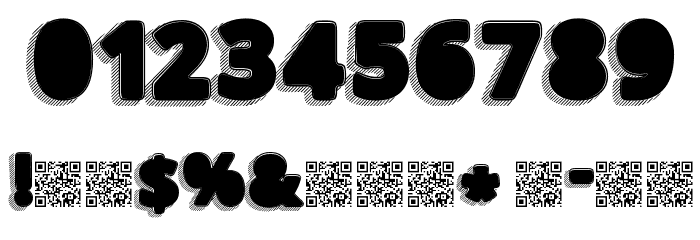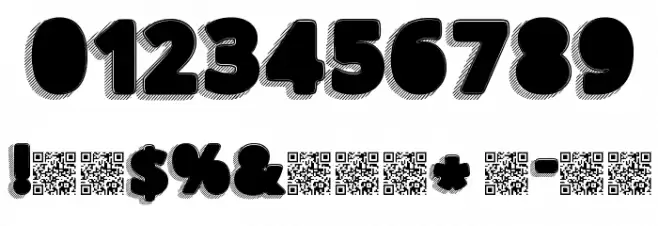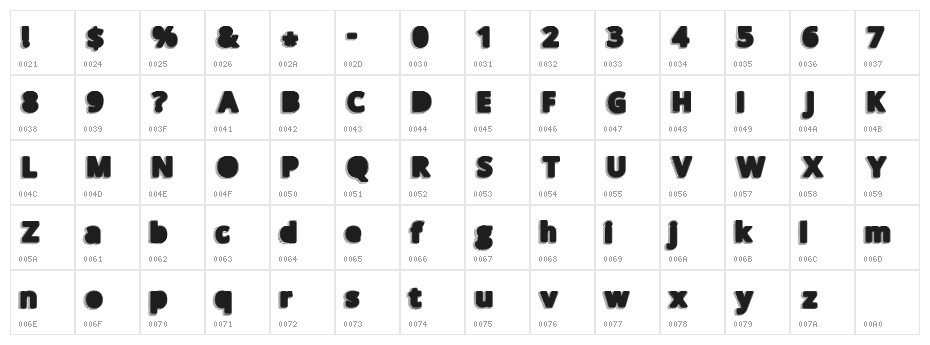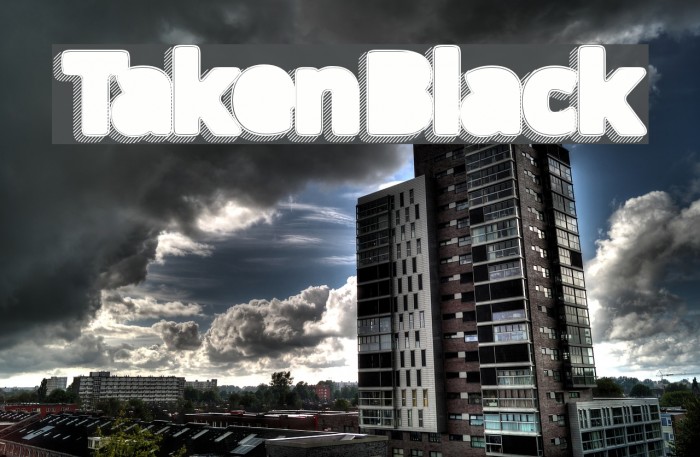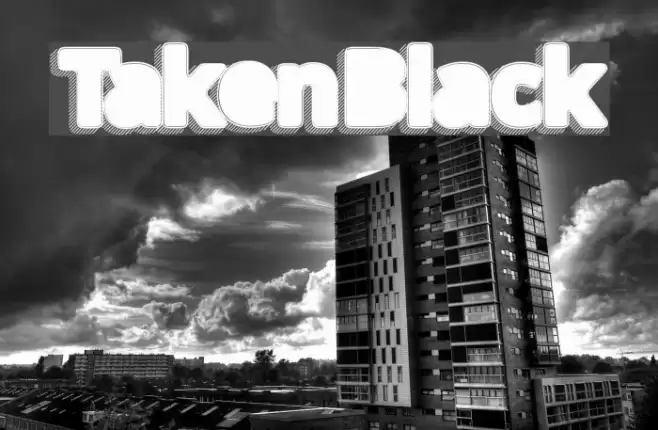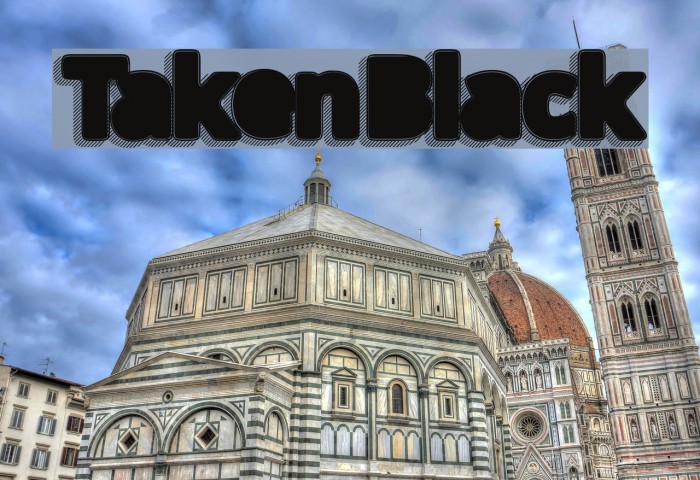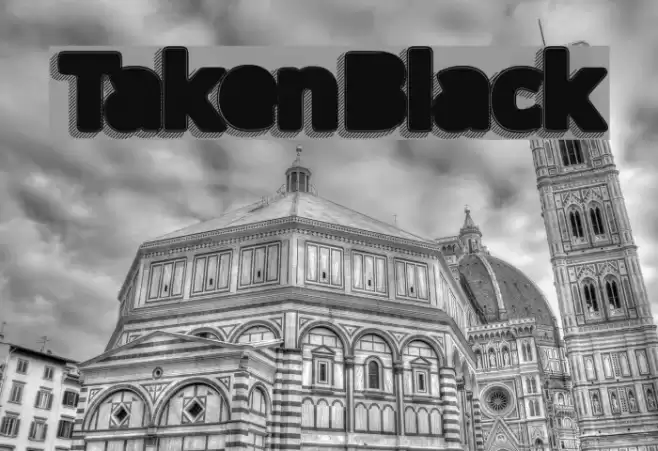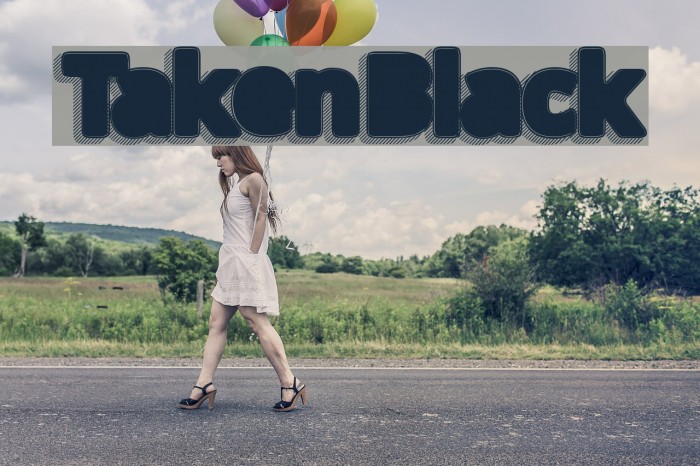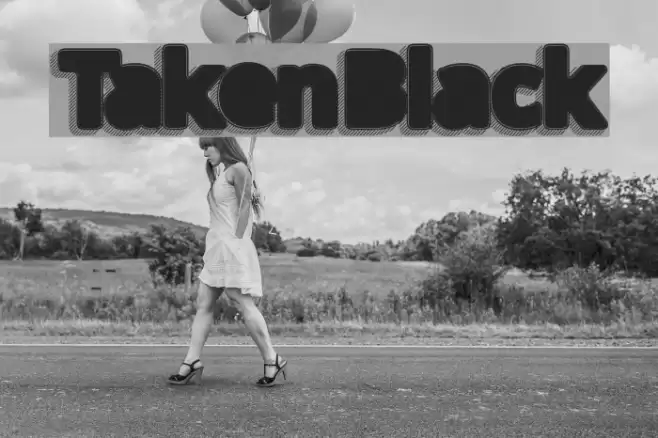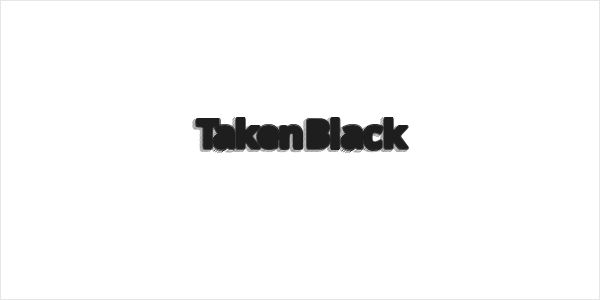
TakenBlack Font
TakenBlack Description
This font features bold, thick lettering with a distinct shadow effect that gives it a three-dimensional appearance. The characters are rounded and smooth, providing a playful and modern look. The shadowing is consistent across all characters, adding depth and a sense of movement. The uppercase and lowercase letters maintain a uniform style, with the lowercase being slightly more compact. Numbers and special characters follow the same design principles, ensuring a cohesive appearance. This font is eye-catching and ideal for making a strong visual impact.